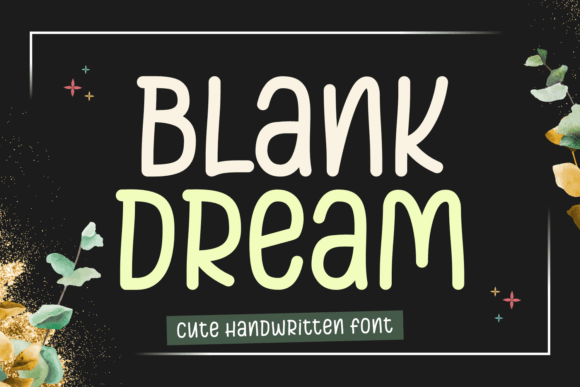
The Blank Dream Font: A Playful and Friendly Addition to Your Design Projects
Have you ever been working on a design project, and suddenly, you’re stuck on finding the perfect font? I recall a recent experience where I was tasked with creating a whimsical children’s book. The illustrations were done, but I just couldn’t find a font that matched the playful vibe. That’s when I stumbled upon the Blank Dream font. Its cute, handwritten letters immediately caught my attention, and I knew I had found the perfect fit.
An Honest Review of Blank Dream Font
What I Love About Blank Dream Font ✨
• ✅ Playful and Rounded Letters: The Blank Dream font features adorable, rounded letters that give off a friendly and personal feel.
• ✅ Ease of Readability: The design is easy to read, making it perfect for projects like invitations, greeting cards, or children’s books.
• ✅ Warm and Inviting: The font adds a warm touch to any text, making it ideal for designs that require a personal and cozy feel.
• ⚠️ Limited Use in Formal Designs: Due to its playful nature, the Blank Dream font might not be suitable for formal designs or projects that require a more professional tone.
• ⚠️ Glyph Limitations: The font may not have an extensive range of glyphs or special characters, which could limit its use in certain projects.
The Designer Inspiration Behind Blank Dream Font
The Blank Dream font was designed with the intention of creating a playful and friendly font that could be used in a variety of design projects. The designer aimed to create a font that would evoke a sense of warmth and coziness, making it perfect for designs that require a personal touch.
Q: What type of projects is the Blank Dream font best suited for?
A: The Blank Dream font is perfect for projects like invitations, greeting cards, children’s books, and other designs that require a playful and friendly feel.
Q: Is the Blank Dream font easy to read?
A: Yes, the Blank Dream font is designed to be easy to read, making it perfect for designs that require a clear and legible font.